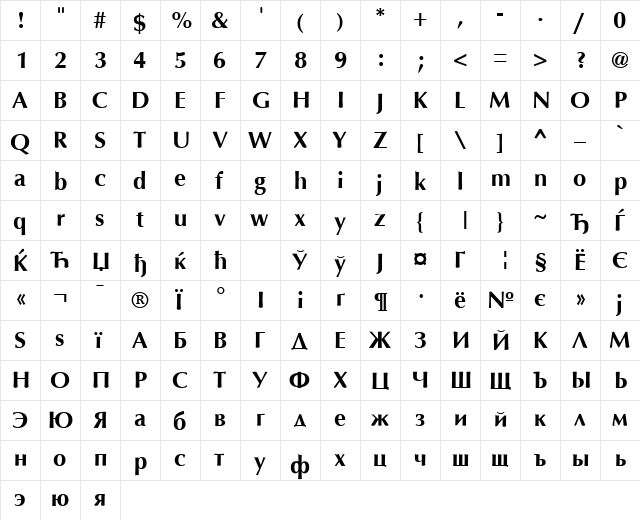
AGOpusHighResolution Bold
Design Context for AGOpusHighResolution Typeface
AGOpusHighResolution offers clean, dependable letterforms without strong stylistic allegiance, making it a practical choice for designers who need flexibility. The heavy weight commands attention and anchors typographic hierarchies.